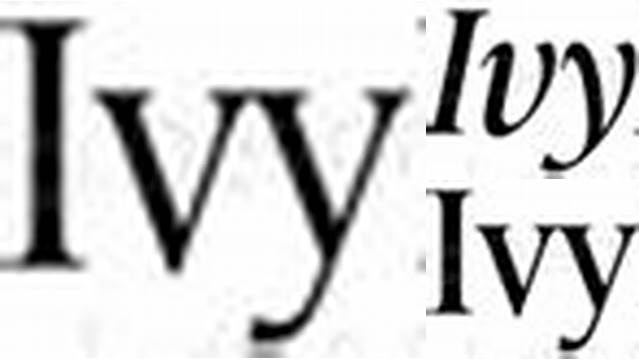
Hey guys, ever found yourself hunting for that perfect font to make your headlines pop? You know, the one that screams "read me!" without being too in-your-face? Well, you're in luck because today we're diving deep into the world of the IvyPresto Headline Regular Font. This gem is a fantastic choice for anyone looking to add a touch of sophistication and readability to their projects. And guess what? We're talking about a free TTF download here! That's right, completely free, and ready to elevate your designs. Whether you're a seasoned graphic designer, a budding blogger, or just someone who loves playing around with typography, finding high-quality free fonts like IvyPresto Headline Regular can be a total game-changer. Stick around, because we're not just going to tell you where to get it; we're going to explore why it's so awesome, how to use it, and answer all your burning questions about this incredible typeface. So, let's get started on this exciting font journey, shall we? You're gonna love what this font can do for your next creative endeavor, trust me!
Unveiling the Charm of IvyPresto Headline Regular Font
The IvyPresto Headline Regular Font isn't just another font; it's a statement. When you’re looking for a typeface that brings a unique blend of elegance and modern clarity to your projects, this one often pops up on the radar of savvy designers. Guys, seriously, this font has a way of making anything you put it on look instantly more professional and polished. It’s designed specifically with headlines in mind, which means it excels at grabbing attention and conveying information quickly and effectively without overwhelming the reader. Think about all those times you’ve scrolled past a blog post or an advertisement because the title just didn’t hook you. That’s where a font like IvyPresto Headline Regular truly shines. Its clear, crisp lines and perfectly balanced proportions make it incredibly readable, even at smaller sizes, which is a huge bonus for versatility. It’s got that professional vibe that just screams quality, making it an excellent choice for everything from corporate reports to personal blogs, ensuring your message always comes across loud and clear.
What makes the IvyPresto Headline Regular Font so special, you ask? Well, it strikes a beautiful balance between traditional serif charm and a clean, contemporary aesthetic. This isn't your grandma's old-fashioned font, but it definitely carries a timeless appeal. It has a certain gravitas without being stuffy, a modern edge without being overly trendy. This versatility is what allows it to fit into a wide array of design contexts, from high-fashion magazines to tech startup websites, and from print brochures to digital banners. When you download IvyPresto Headline Regular TTF, you’re not just getting a file; you’re getting a tool that can instantly elevate the perceived quality of your work. It feels sophisticated, yet approachable, which is a hard combination to nail down in typography. This makes it ideal for branding, where you need to communicate reliability and style simultaneously. Plus, its consistent letterforms ensure a harmonious look across all your designs, helping you maintain a strong visual identity. You really can’t go wrong with adding this one to your toolkit.
Alternatives to IvyPresto Headline Regular: What Else is Out There?
While the IvyPresto Headline Regular Font is a fantastic choice, especially as a free TTF download, sometimes a project calls for something a little different, or you might just want to explore your options. Luckily, there are many excellent alternatives to IvyPresto Headline Regular that share similar characteristics of elegance, readability, and modern serif appeal. One popular alternative that comes to mind is Lora. Lora is a well-balanced contemporary serif with roots in calligraphy, offering a slightly softer, more flowing feel than IvyPresto, while still being highly legible. It's often available for free via Google Fonts, making it incredibly accessible for web and print. Another contender is Playfair Display, which boasts high contrast and dramatic serifs, perfect for creating luxurious and editorial-style headlines. While it leans a bit more into the